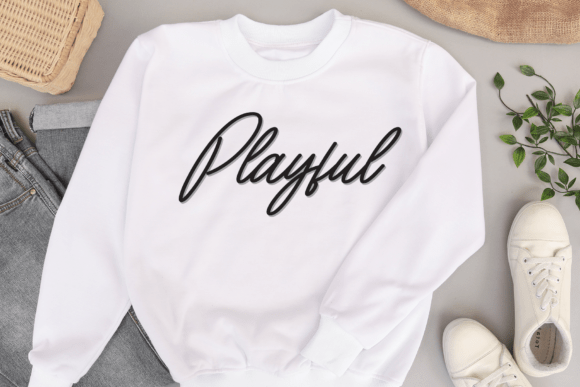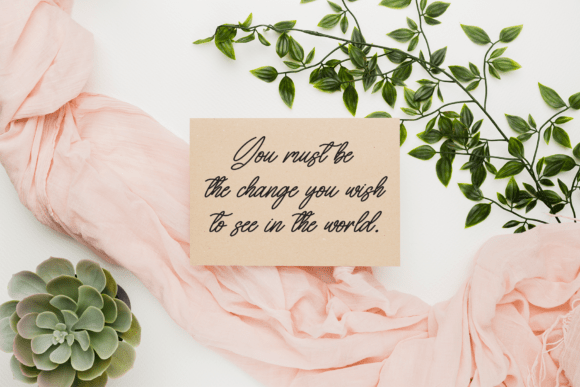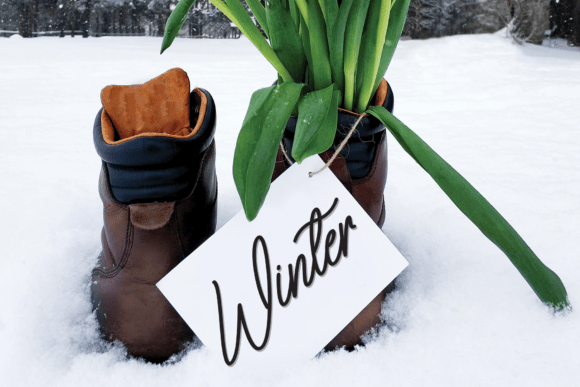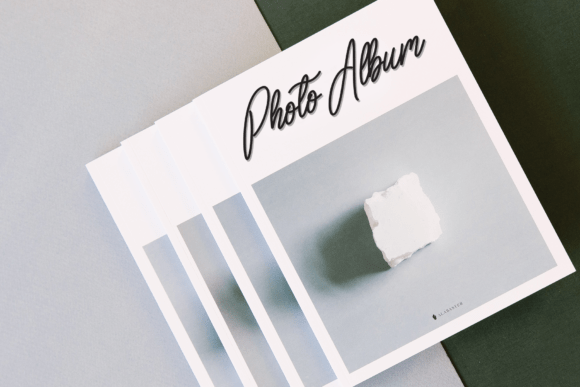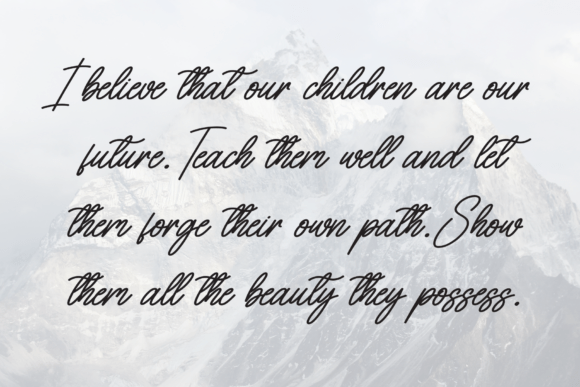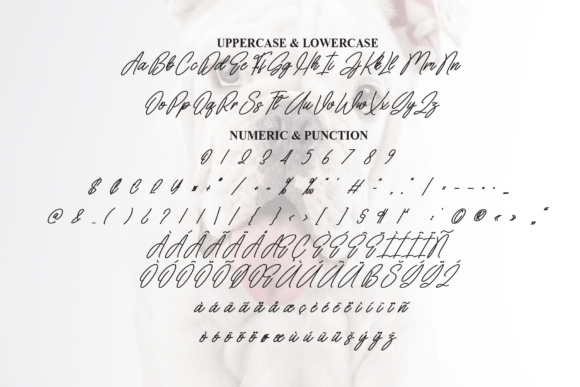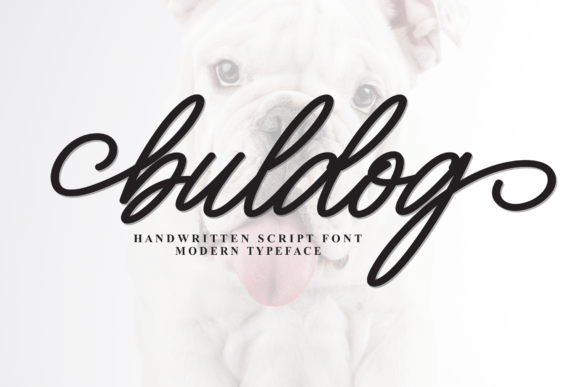
Introducing Buldog Font: Elevate Your Designs with a Touch of Elegance
Are you a designer, crafty enthusiast, or business owner looking for a unique and creative way to make your projects stand out? Look no further than the Buldog Font, a specially designed typeface that will add a touch of elegance and sophistication to your work. Our font is perfect for a wide range of applications, from wall displays and wedding invitations to social media posts, logos, advertisements, product packaging, and more.
What Sets Buldog Font Apart
Our Buldog Font is not just any ordinary font. It’s a carefully crafted, creative product designed to provide you with an extraordinary experience. With its latest style letters, this font is perfect for anyone looking to add a touch of class and personality to their projects. Whether you’re working on a wedding invitation, a product label, or a social media post, the Buldog Font is sure to make your design stand out.
The Buldog Font is incredibly versatile and can be used for a wide range of projects, including:
- Wall displays and signage
- Social media posts and logos
- Advertisements and marketing materials
- Product packaging and labels
- Product designs and branding
- Photography and watermarks
- Invitations and event materials
- Stationery and paper goods
What You’ll Get with Buldog Font
Why Choose Buldog Font?
So why choose the Buldog Font for your design needs? Here are just a few reasons:
- Unique and Creative Design: Our font is carefully crafted to provide a unique and creative look that will set your designs apart.
- Versatile: Whether you’re working on a personal project or a commercial design, the Buldog Font is perfect for a wide range of applications.
In conclusion, the Buldog Font is a must-have for anyone looking to add a touch of elegance and sophistication to their designs. With its wide range of applications, ease of use, and long-term support, this font is perfect for designers, crafters, and business owners alike. So why wait? Get your hands on the Buldog Font today and start creating extraordinary designs that will set you apart from the rest.